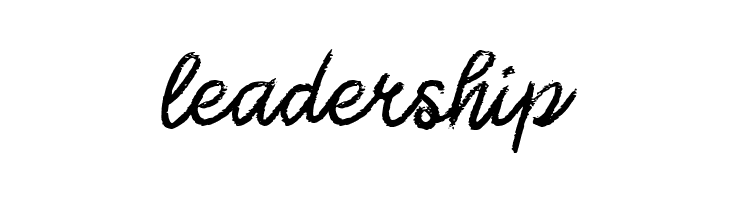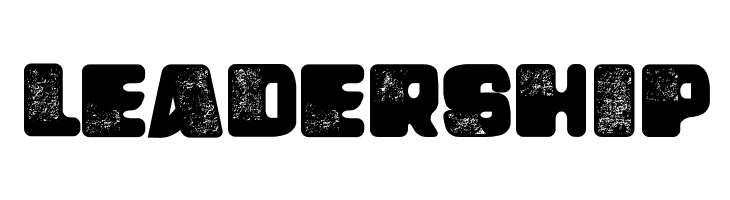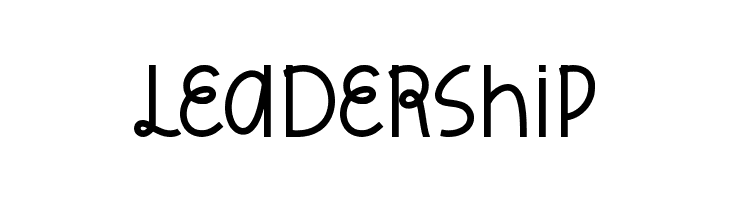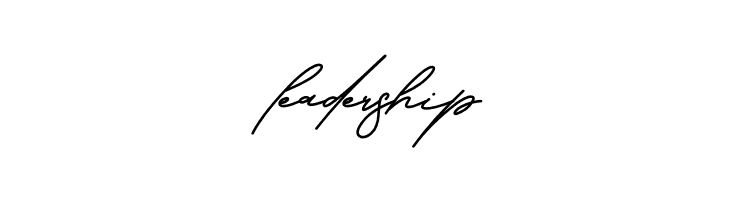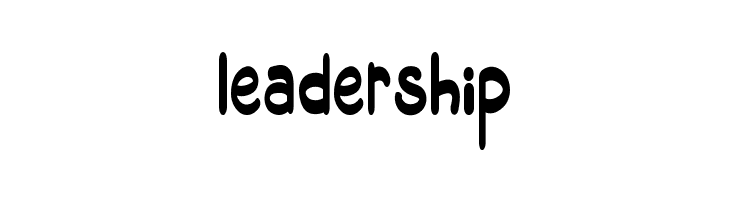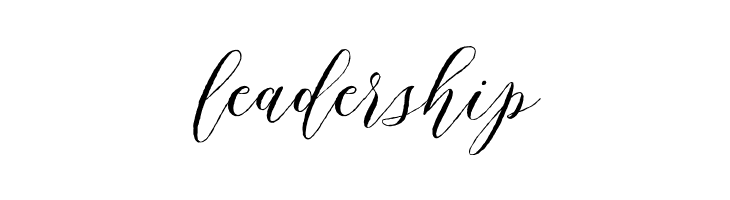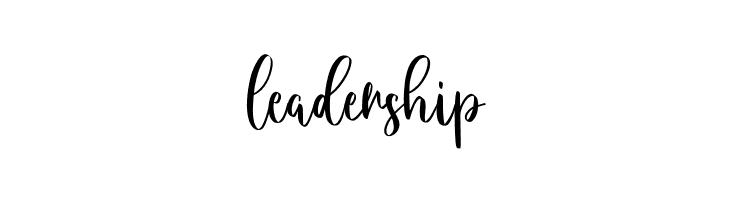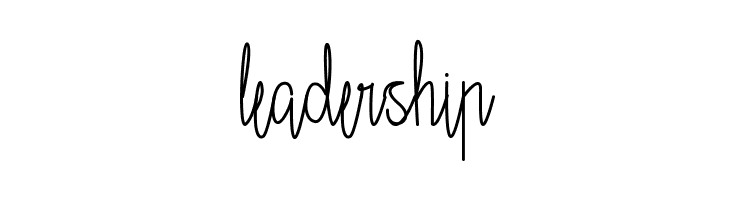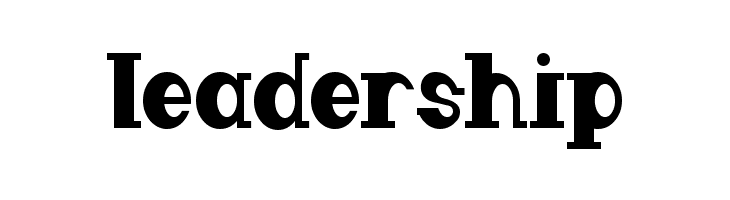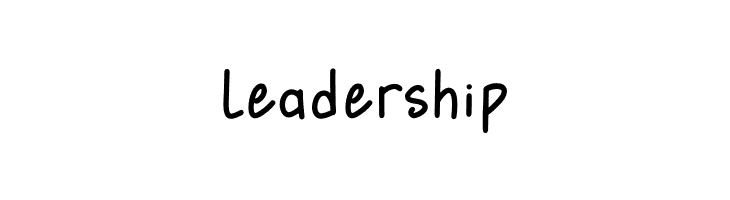
A playful, handwritten font with bold, dynamic characters.
Playful, bold, rounded hand-drawn font.
A bold, modern font with a geometric and streamlined design.
A playful, bold font with rounded, hand-drawn characteristics.
A sophisticated script font with flowing, interconnected letters and a handwritten feel.
A bold, geometric font with a 3D effect and textured interior, perfect for striking displays.
A graceful script font with flowing, connected letters and a sophisticated style.
A bold, hollow, three-dimensional font with a modern geometric style.
A bold, geometric font with a 3D effect and sharp angles.
A bold, geometric monogram font with characters enclosed in hexagons.
A decorative monogram font with bold, uppercase letters enclosed in ovals.
A modern, hand-drawn font with outlined, sketch-like characters.
A playful, hand-drawn font with thin, uneven strokes and a whimsical style.
A playful, hand-drawn font with double-line outlines and a whimsical style.
A playful, hand-drawn font with outlined characters and a creative flair.
A light, hand-drawn font with a whimsical and artistic style.
A modern, monolinear font with geometric shapes and consistent stroke widths.
A flowing, cursive script font with elegant, connected strokes.
A casual, handwritten font with elongated, slanted letters and thin strokes.
A thin, handwritten font with a casual and flowing style.
A bold, angular font with a geometric and modern design.
A bold, playful font with a hand-drawn, energetic style.
A playful, handwritten font with tall, narrow, and quirky letterforms.
A bold, textured font with a playful, monstrous design.
A bold, 3D font with strong shadow effects and geometric shapes.
A bold, distressed font with a vintage, textured appearance.
A bold, extravagant font with geometric shapes and intricate patterns.
A bold, hollow, and geometric font with a modern and decorative style.
A bold, geometric decorative font with striking outlined elements.
A bold, geometric font with striking negative space and sharp angles.
A bold, flowing script font with elegant, interconnected characters.
A flowing, cursive font with elegant loops and a handwritten style.
A bold, distressed font with a vintage, rustic appeal.
An elegant and flowing script font with bold, ornate uppercase letters and cohesive lowercase forms.
A dynamic and expressive handwritten font with fluid strokes.